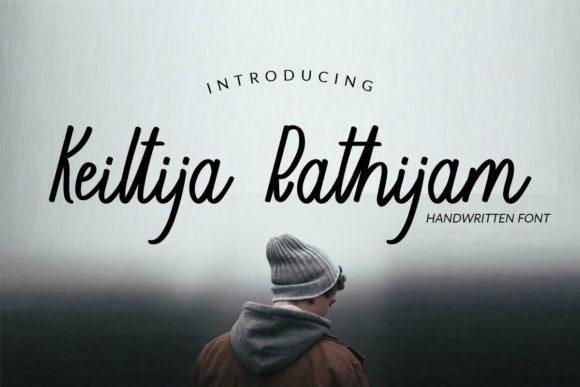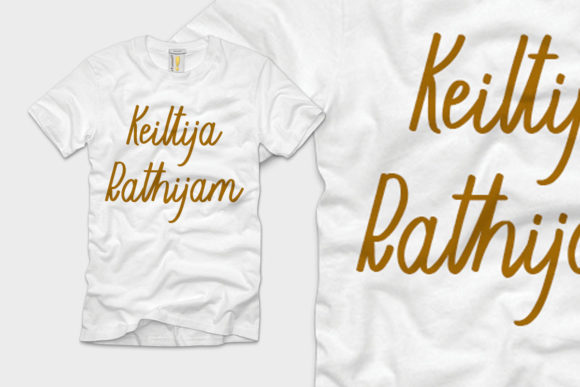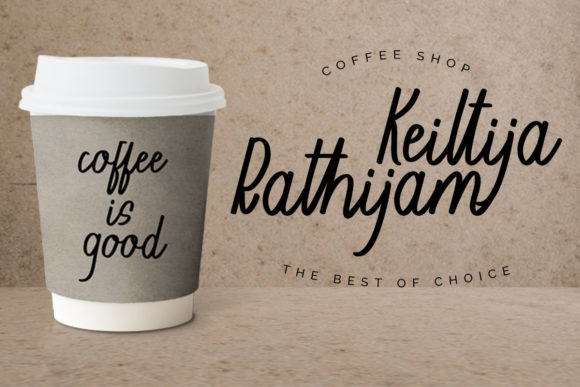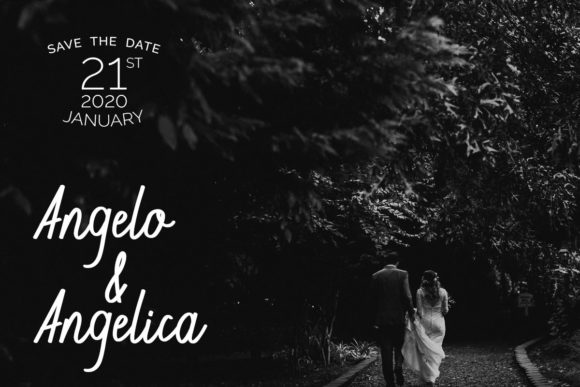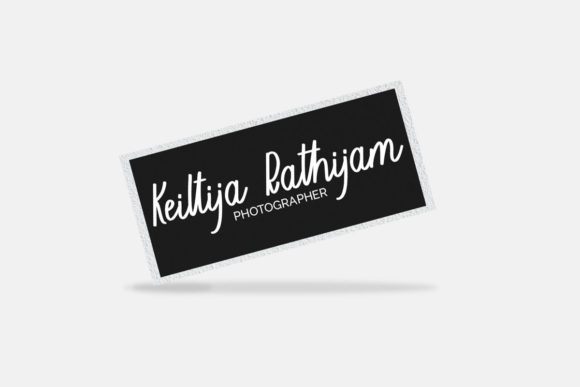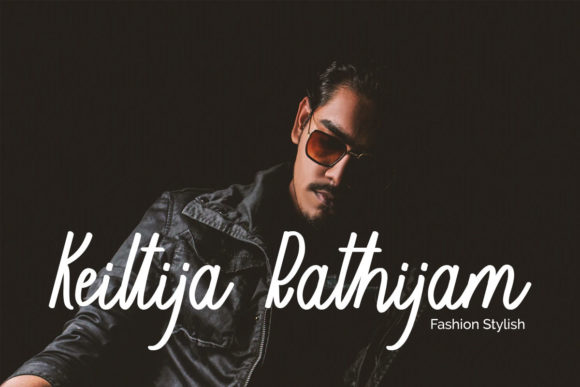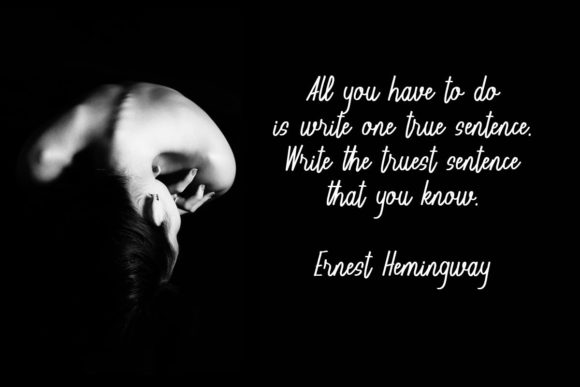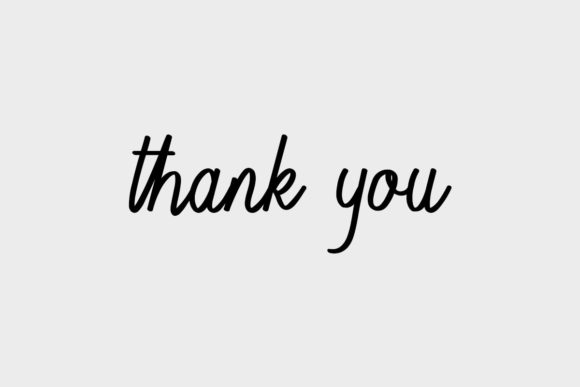
Keiltija Rathijam Font
About Keiltija Rathijam Font
Keiltija Rathijam is a lovely, clean and well balanced script font that exudes elegance and class. This font was particularly crafted for those who need a beautiful and refreshing look to their designs.